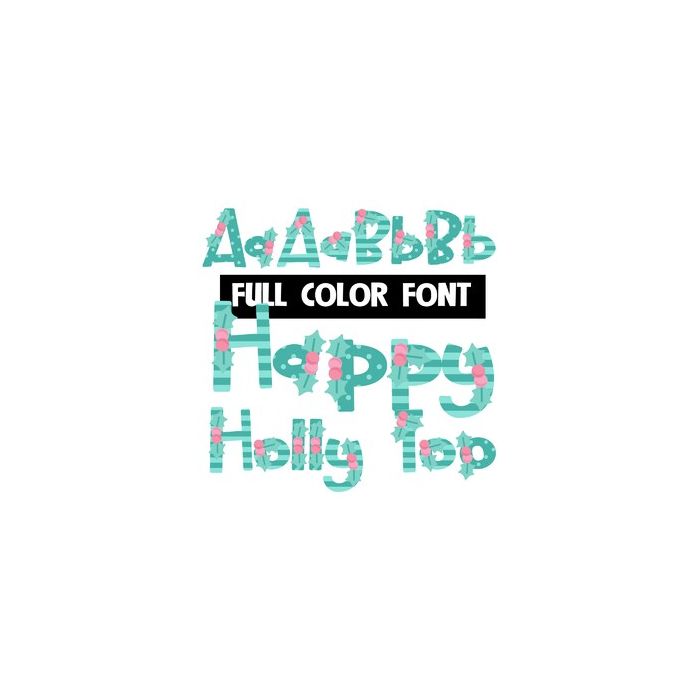
This full-color font stripes, dots and holly. There is an alt case with alternative pattern choices that you can access thru your system's character map.